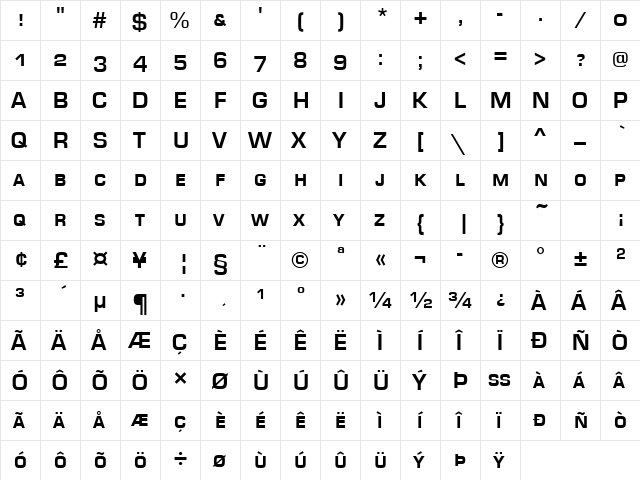
Eurostile Becker Caps Bold
Design Context for Eurostile Becker Caps Typeface
Eurostile Becker Caps offers clean, dependable letterforms without strong stylistic allegiance, making it a practical choice for designers who need flexibility. The heavy weight commands attention and anchors typographic hierarchies.